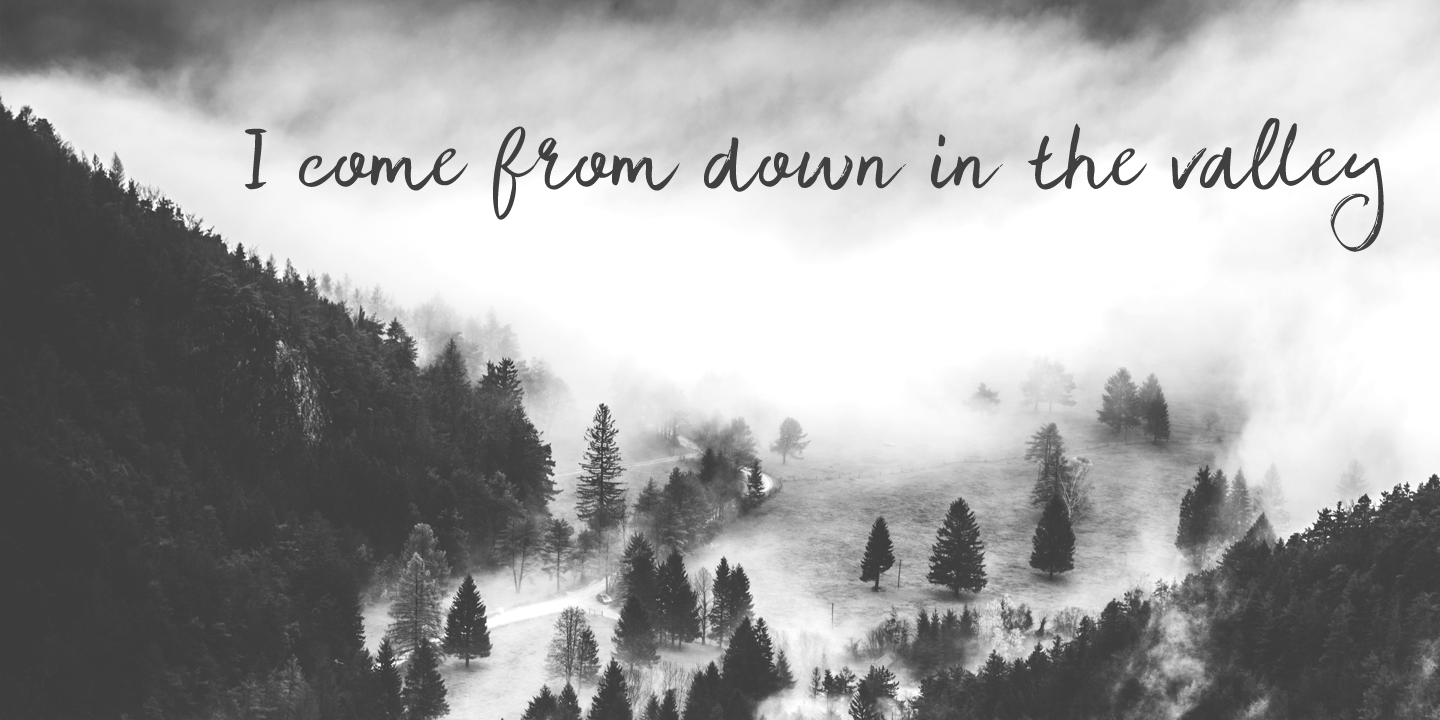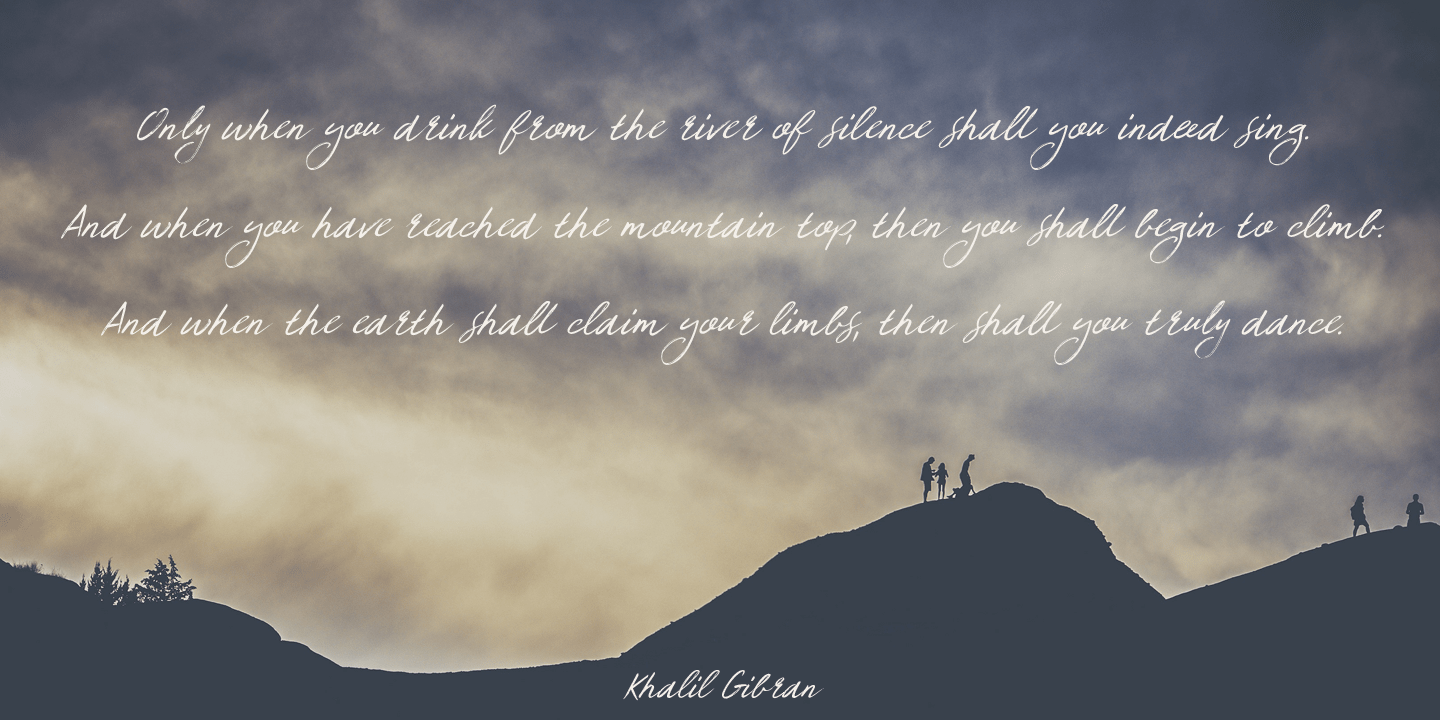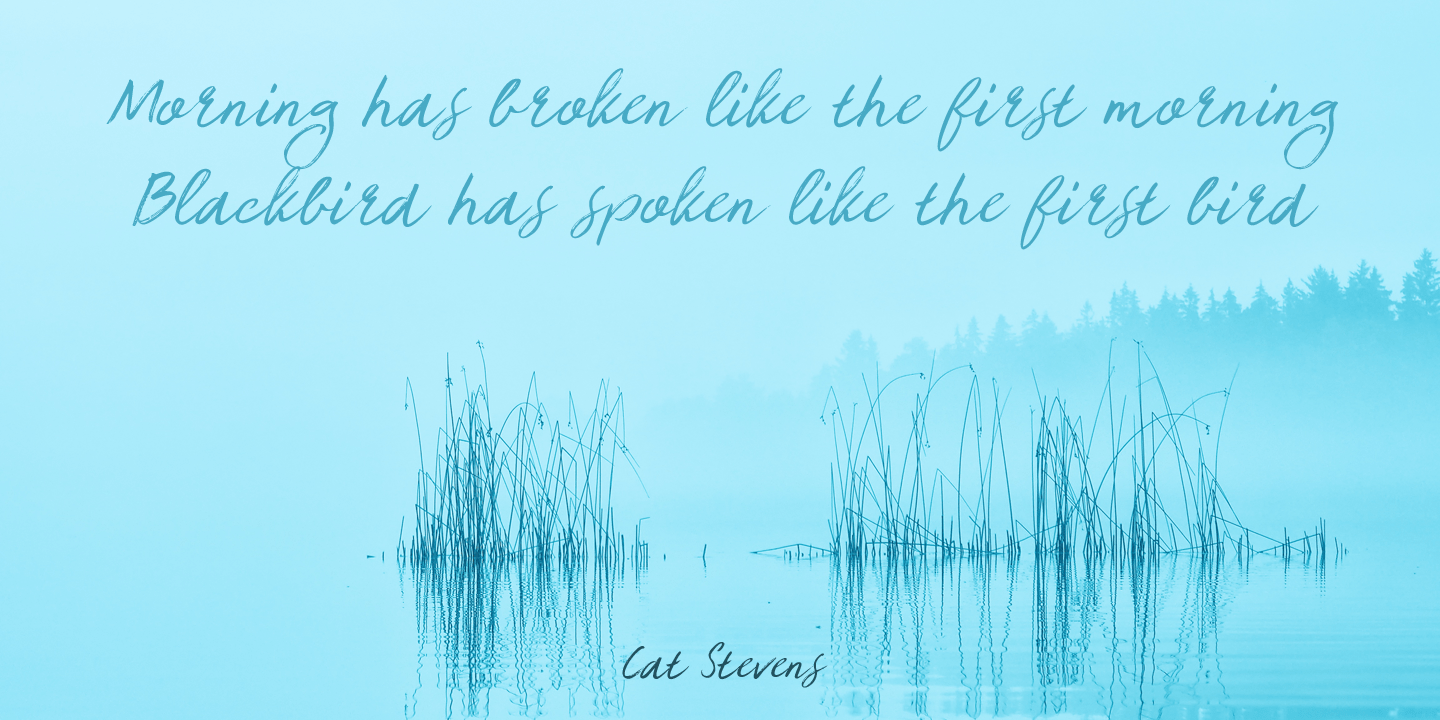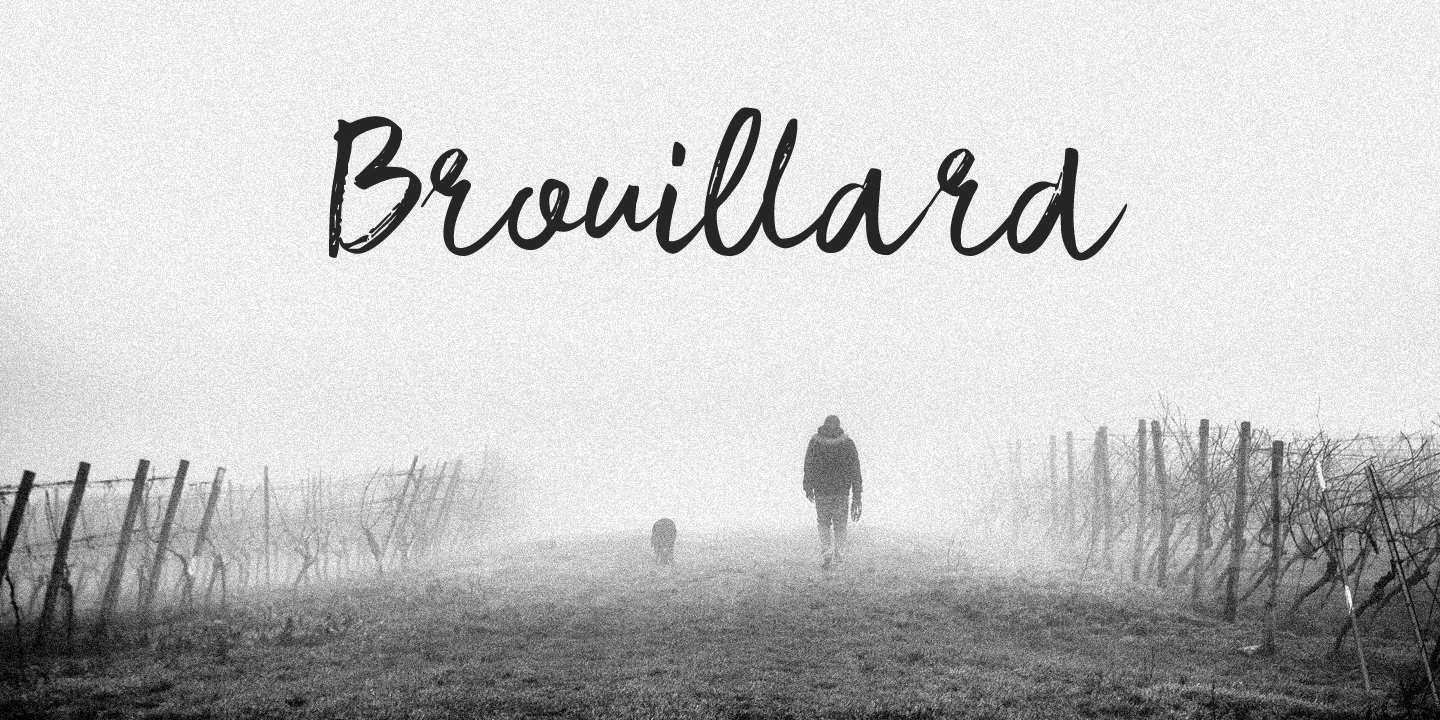
About Brouillard
Brouillard means ?fog? in French. I like the ?oui? letter combination and I was looking for a name for this font that contained those letters. I found Brouillard and presto: a new font was born! Brouillard font was handmade with a Japanese pen. It is…